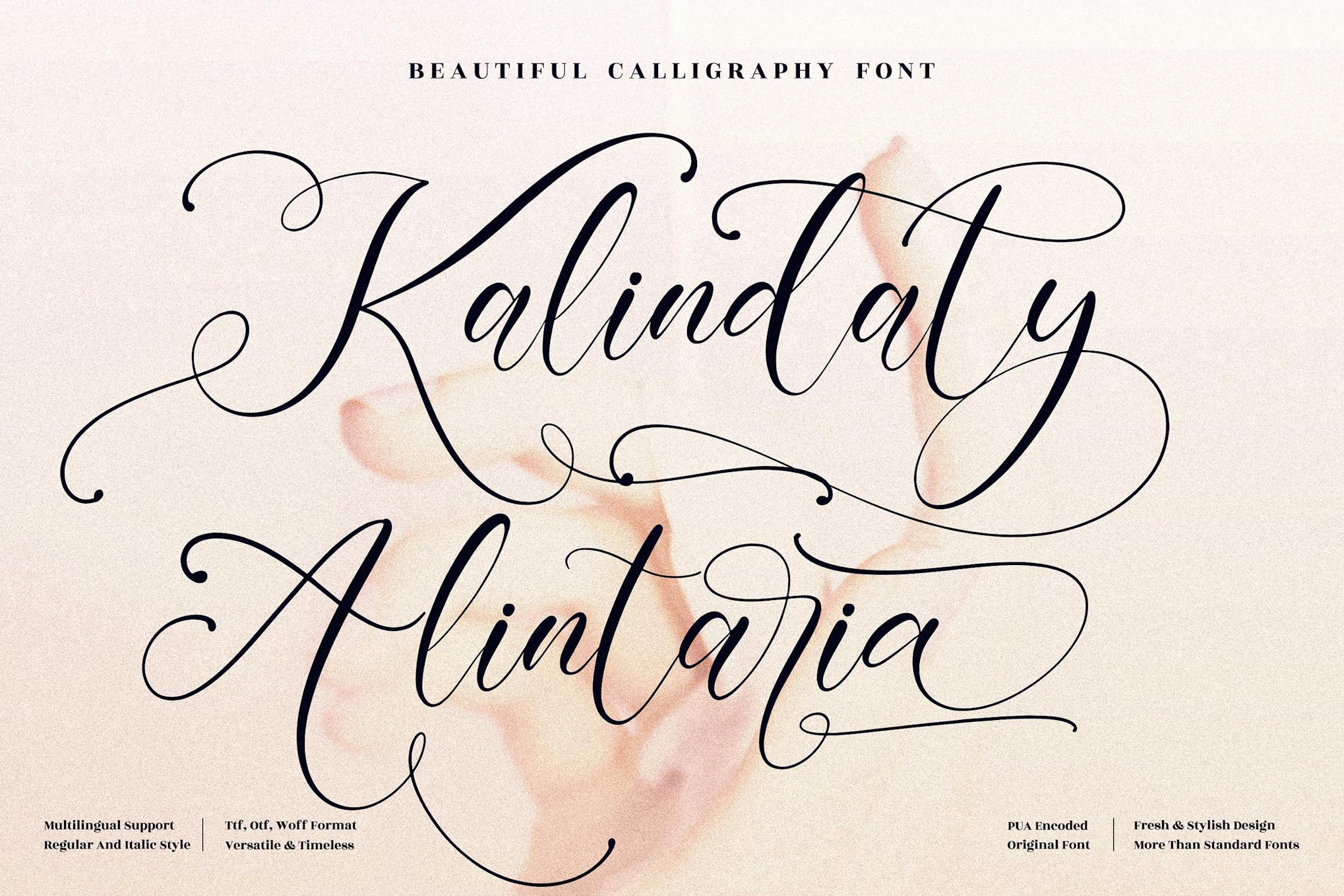
Kalindaty Alintaria Wedding Script Font
The Kalindaty Alintaria Wedding Script Font excels in exotic design applications including mystical wedding invitations, enchanting bridal branding, exotic ceremony logos, mystical product packaging, enchanting business cards, exotic portfolios, mystical greeting cards, enchanting social media graphics, exotic event signage, and mystical marketing materials. Its exotic script style makes it perfect for projects requiring mystical elegance that communicates enchantment and establishes exotic brand positioning with audiences seeking mystical wedding experiences and enchanting sophistication.
What makes the Kalindaty Alintaria Wedding Script Font truly exciting is its exceptional ability to capture the exotic beauty and mystical charm of enchanting weddings through mystically crafted letterforms. The font features flowing, exotic strokes with mystical flourishes and enchanting proportions that create a distinctly mystical appearance. Each character displays remarkable attention to exotic detail with mystical curves, enchanting connections, and exotic spacing that give text a beautifully mystical, hand-lettered quality. The font's exotic character and mystical rhythm create an atmosphere of enchanting mystery while maintaining exotic sophistication and wedding authenticity.
The Kalindaty Alintaria Wedding Script Font family typically includes regular weight with extensive character coverage, featuring uppercase and lowercase letters, numerals, punctuation marks, and international characters. The typeface often incorporates stylistic alternates, contextual ligatures, and exotic swashes that enhance its signature mysticism. These additional elements provide designers with creative flexibility to customize text appearance and achieve more natural-looking mystical handwriting that reflects the font's exotic and enchanting character.
This mystical signature font distinguishes itself through its remarkable balance of exotic charm and sophisticated elegance. Unlike ordinary or common fonts that lack mystical appeal, Kalindaty Alintaria Wedding Script Font embraces the power of exotic design to create mystical connections with enchanting wedding audiences. The font's mystical character makes it essential for exotic wedding planners, mystical brands, and enchanting celebration businesses where creating mystical wedding experiences and exotic memories is fundamental to success in enchanting wedding markets.